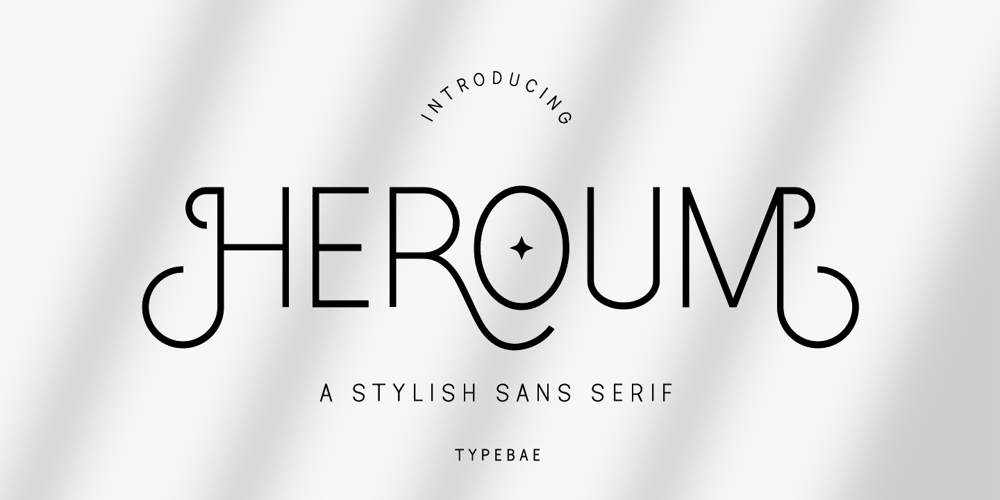
Heroum
Heroum font
Heroum Font Family was designed by Iqbal Pauji and published by Typebae. Heroum contains 2 styles and family package options. Heroum is stylish and beautiful sans serif font. It will look perfect in photography designs, watermarks, social media posts, advertisements, logos, branding, and various other projects.To use stylistics and ligatues, you don’t need to use software that supports opentype, because we have made it separately so it’s very easy to use.Features? Stylistic Alternates Ligatures Multilingual PUA Encode